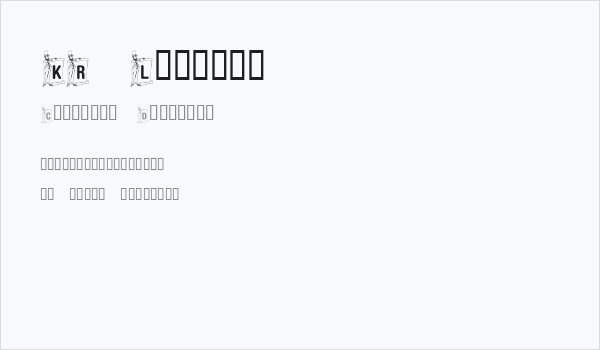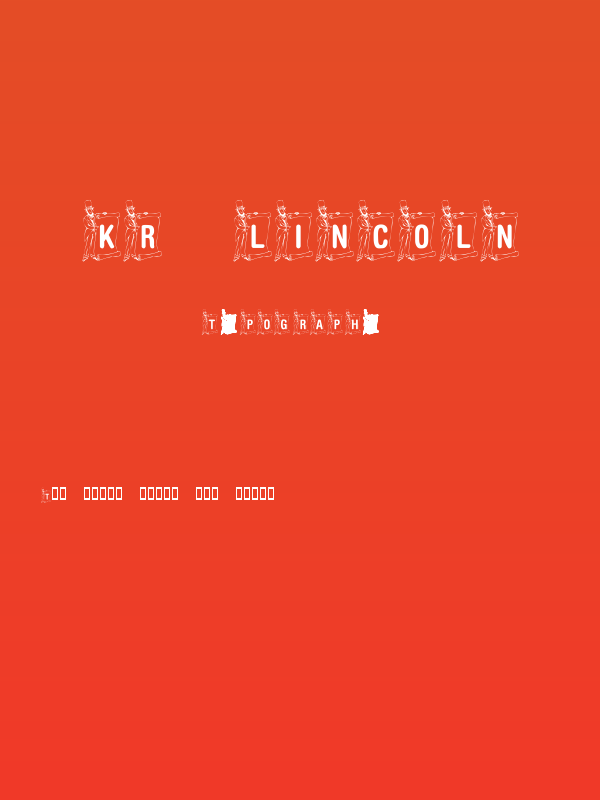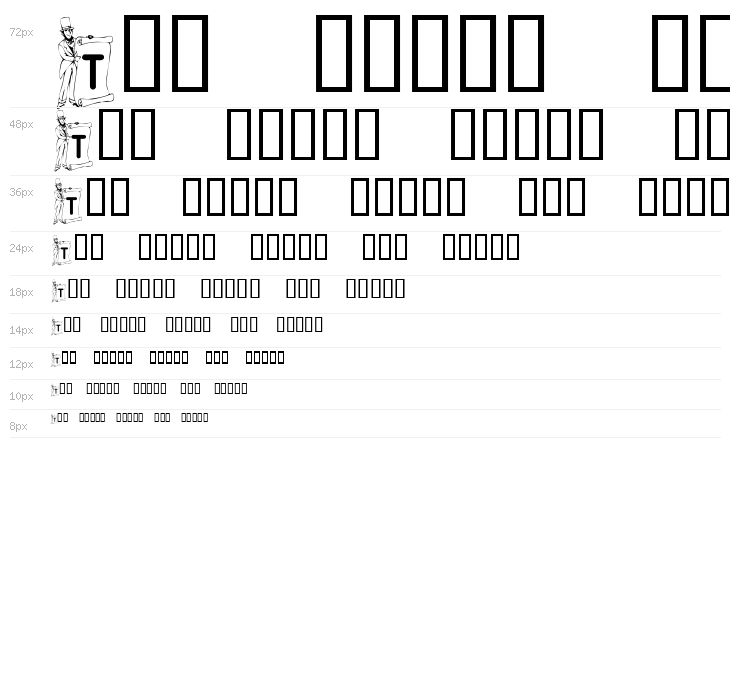
KR Lincoln Font
KR Lincoln Description
This decorative font features each letter encased within an ornate frame held by a classical figure, reminiscent of historical or vintage themes. The characters themselves are bold and clear, providing a striking contrast to the intricate design surrounding them. The overall effect is one of elegance and sophistication, making it suitable for projects that require a touch of classic or historical flair. The font's unique presentation makes it ideal for decorative purposes, where the visual impact is as important as readability.
Overall StyleVintage
Use CaseLogos, Headlines, Decorative text
Proposed ProjectsPerfect for historical-themed posters, vintage book covers, theatrical programs, or any project needing a classical touch.